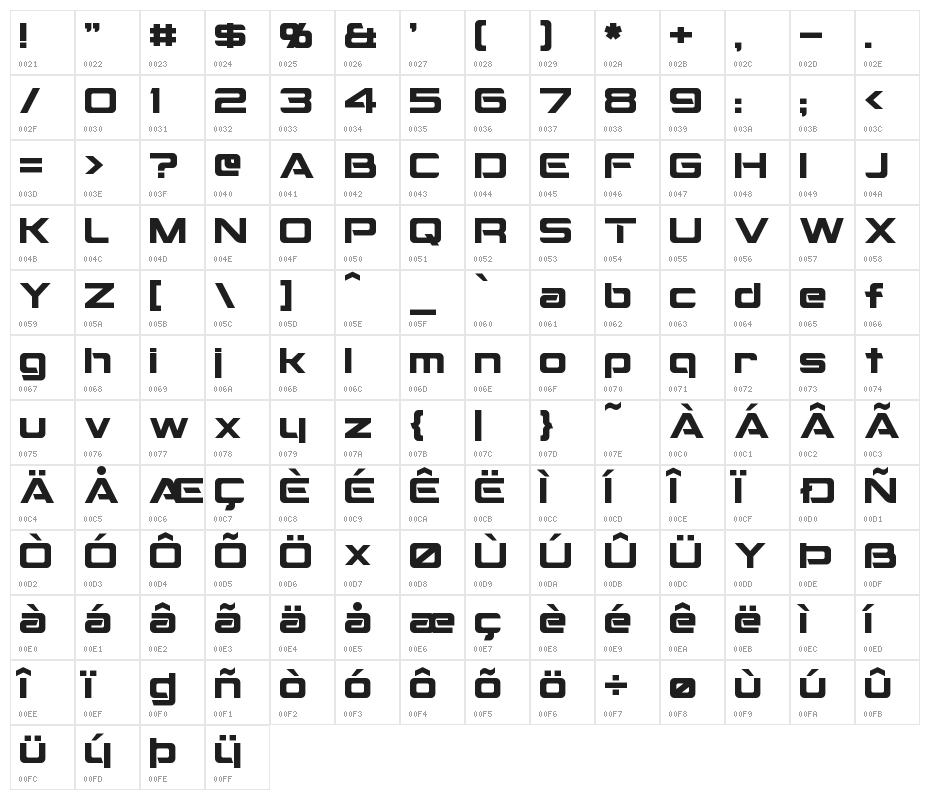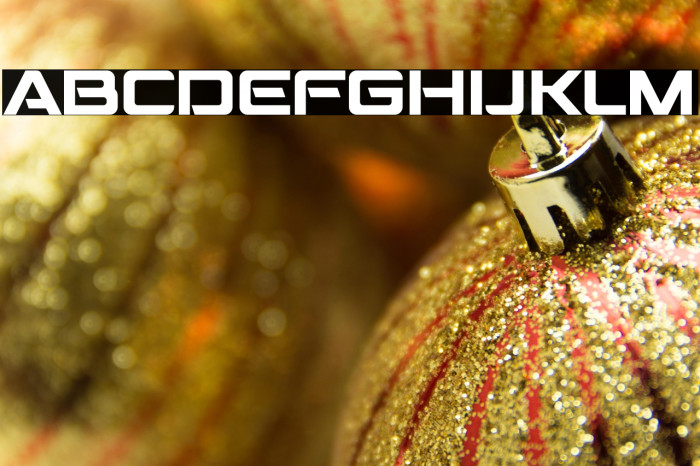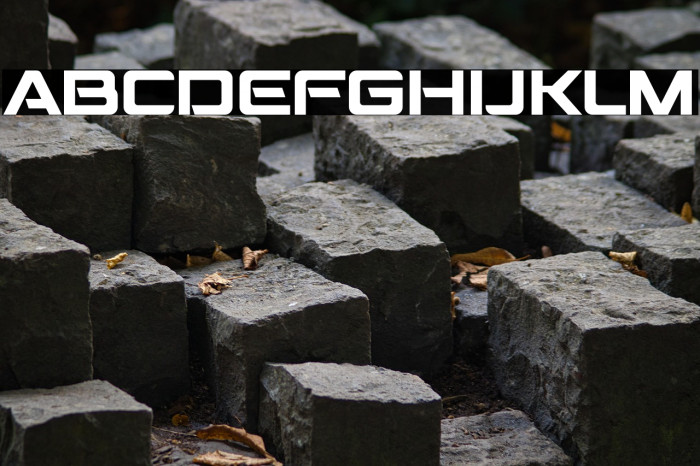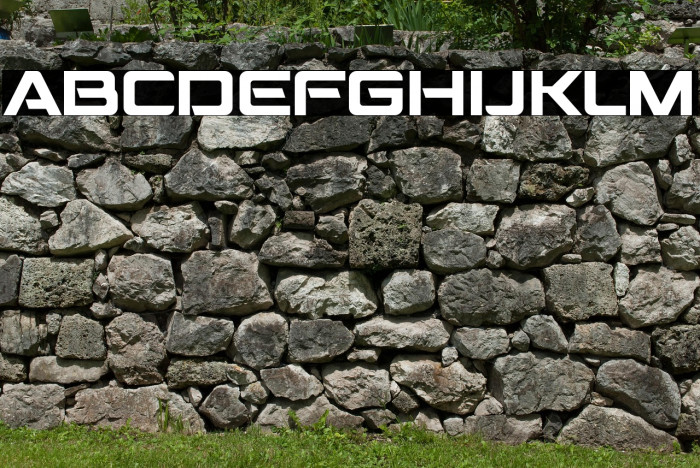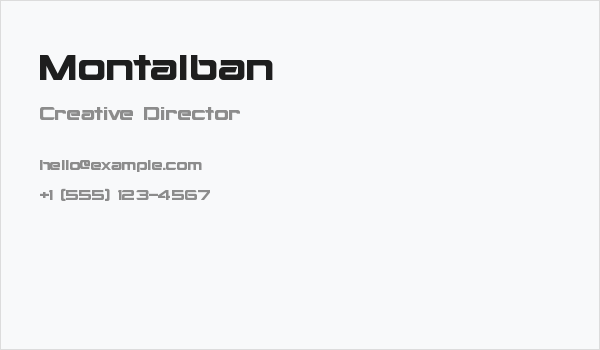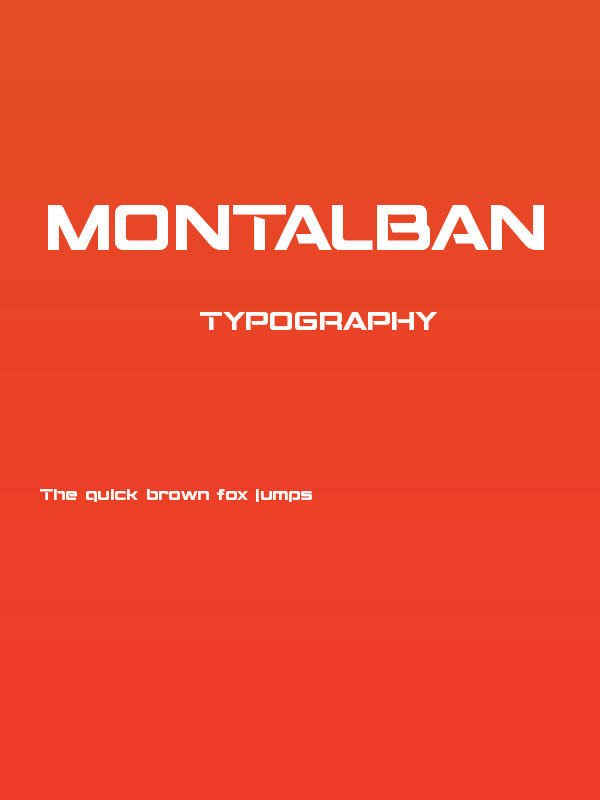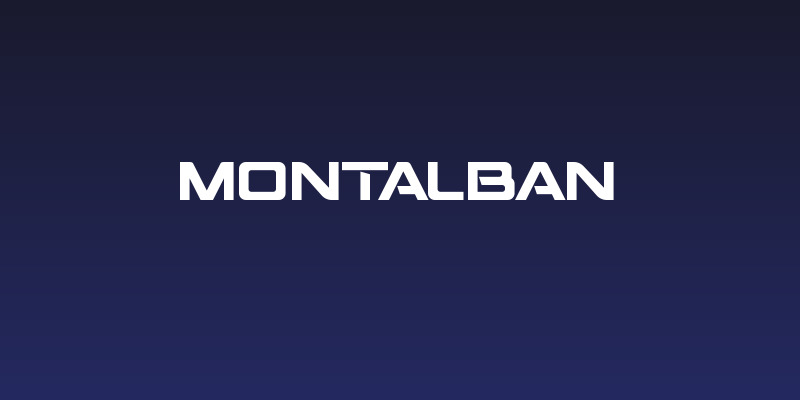
Montalban Font
Montalban Description
This font features a bold and modern design with a geometric and slightly futuristic aesthetic. The characters are constructed with sharp angles and clean lines, giving it a strong and assertive presence. The uppercase letters are particularly striking, with a uniform height and width that create a cohesive look. The lowercase letters maintain the same boldness, ensuring readability while adding a touch of uniqueness with their angular shapes. The numerals are consistent with the overall style, offering clear and distinct forms. Special characters are designed to match the bold and geometric theme, making them stand out effectively.